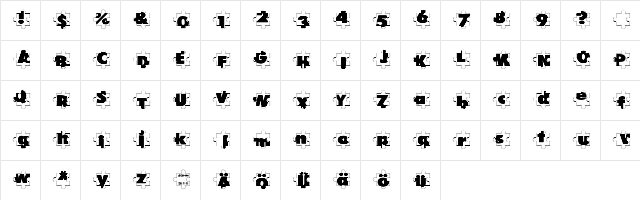
Puzzle Pieces Regular Free Font
Puzzle Pieces Regular
Design Context for Puzzle Pieces
Puzzle Pieces is a composed and adaptable typeface that performs quietly and consistently across a wide range of design contexts.